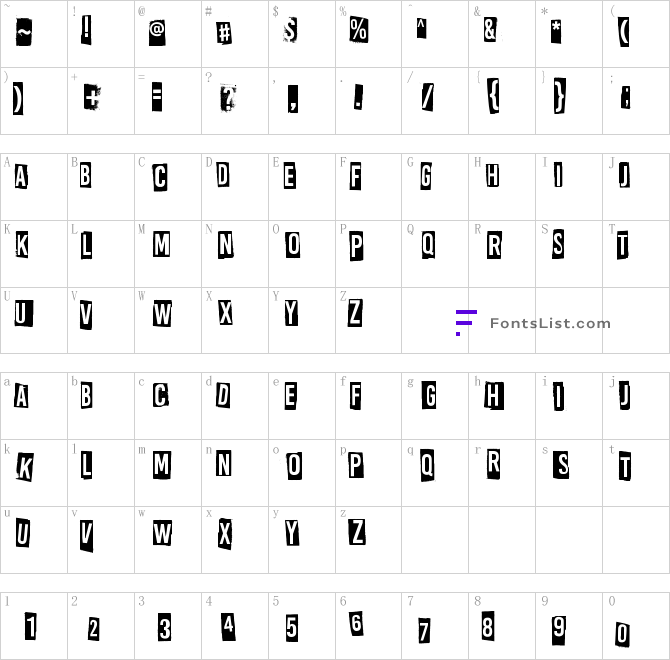
- Font Name:All rights reserved
All-rights-reserved.ttf is a very beautiful artistic font, All-rights-reserved.ttf is widely used in the design and printing of various books and pictures,All-rights-reserved.ttf has a strong visual impact,All-rights-reserved.ttf is a commonly used font in newspapers, magazines and books, and is used in posters, e-commerce Poster design, store design, logo design, font design and other fields.All-rights-reserved.